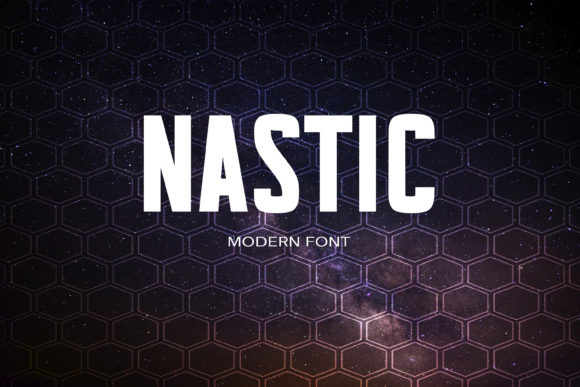
Nastic Font: The Perfect Sans Serif for Your Design Projects
Let your creativity take center stage with Nastic, the alluring sans serif font that will imbue your design projects with a distinctive flair. With its crisp lines and captivating curves, Nastic is a visual masterpiece that will leave a lasting impression.
Unleash the Boldness:
Nastic's bold and confident strokes command attention, making it the ideal choice for headlines, logos, posters, and packaging design. It effortlessly conveys power, authority, and sophistication, leaving an indelible mark on your audience.
Create a Unique Flavor:
Nastic possesses a unique personality that sets it apart from other fonts. Its meticulously crafted characters exude charm and character, adding a touch of individuality to your designs. Whether you're working on branding, marketing materials, or web design, Nastic will help you create a truly memorable experience.
Embrace Versatility:
Nastic's versatility knows no bounds. Its clean and contemporary style seamlessly adapts to a wide range of design projects, including branding, web design, social media graphics, and print materials. Whether you're aiming for a modern, minimalist look or a bold, eye-catching aesthetic, Nastic has the versatility to deliver.
Craft Timeless Designs:
With Nastic as your font of choice, you can create timeless designs that transcend fleeting trends. Its classic sans serif structure ensures that your projects will maintain their relevance and appeal for years to come. Nastic is the perfect companion for designers who value longevity and sophistication.